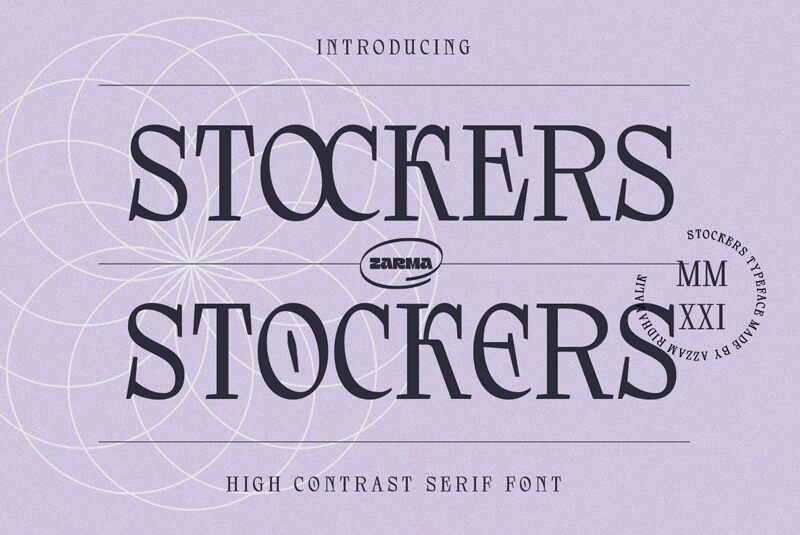
Stockers, a mesmerizing serif font by Zarma Type Foundry, brings elegance and sophistication to your projects. With its semi-light weight and semi-condensed width, this font is perfect for creating eye-catching headlines and titles that demand attention. Whether you're designing wedding invitations, crafting a luxurious magazine layout, or even working on a professional branding project, Stockers will add a touch of class and refinement. Its timeless appeal makes it suitable for a range of design styles, from vintage to modern. Embrace the versatility of Stockers and elevate your designs to new heights.
Stockers
Azzam Ridhamalik